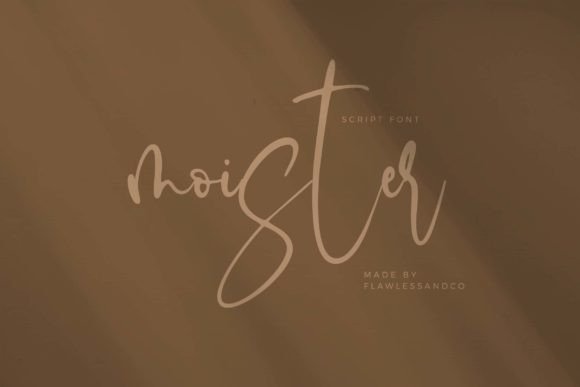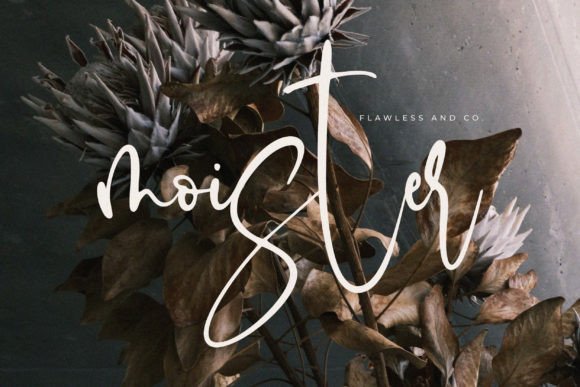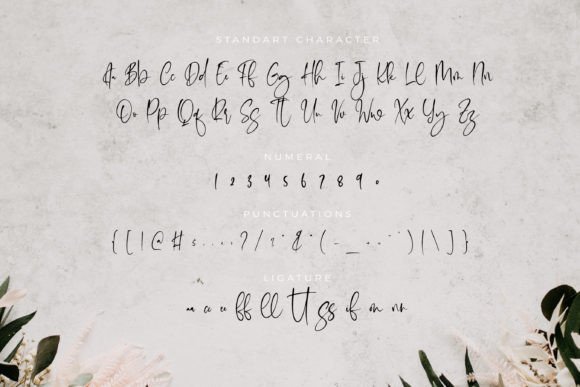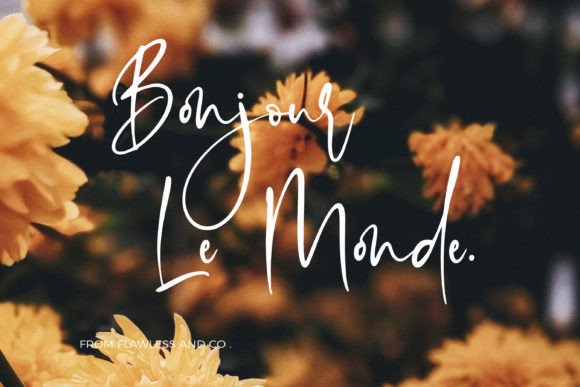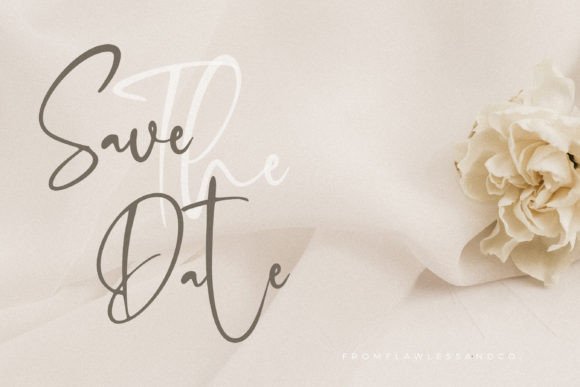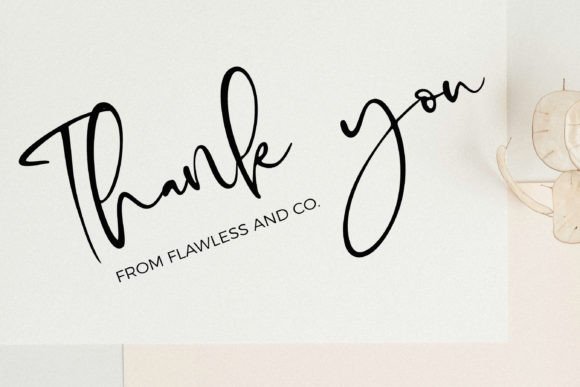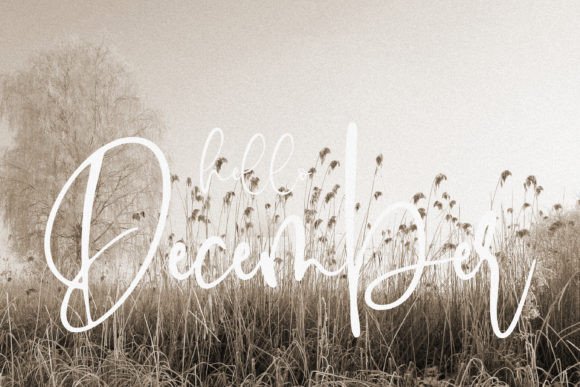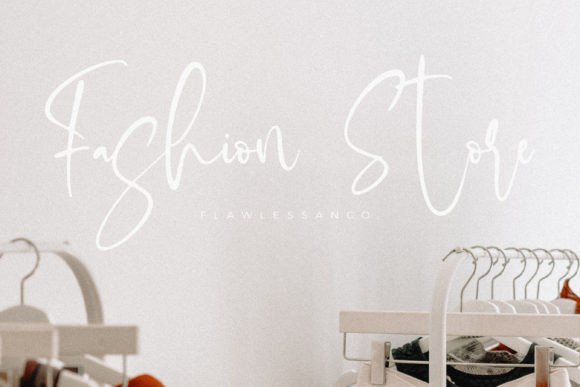
About Moister Font
“Moister” is a flowing handwritten font that is defined by its elegant touch, making it a perfect choice for your favorite design projects. This font possesses a distinct and timeless style that has the power to elevate your creations to a spectacular level.
The charm of “Moister” lies in its ability to seamlessly blend flowing elegance with a timeless aesthetic. Its handwritten style exudes sophistication and a touch of grace, making it an ideal addition to a wide range of creative endeavors.
Whether you’re working on branding, invitations, quotes, posters, social media graphics, logos, or any project that demands a sense of class and timeless beauty, “Moister” is the typeface that can bring your ideas to life.
In the world of design, achieving a balance between flowing elegance and timeless appeal is a remarkable feat, and “Moister” excels in this regard. It ensures that your projects not only look visually appealing but also convey a feeling of enduring style and grace, leaving a lasting and stylish impact on your audience.
Embrace “Moister” with enthusiasm and watch as it enchants you, allowing your creative endeavors to reach new heights with its exceptional blend of sophistication and timelessness, making your projects truly spectacular and memorable.